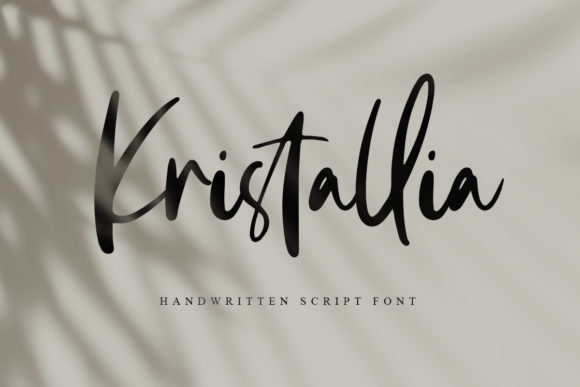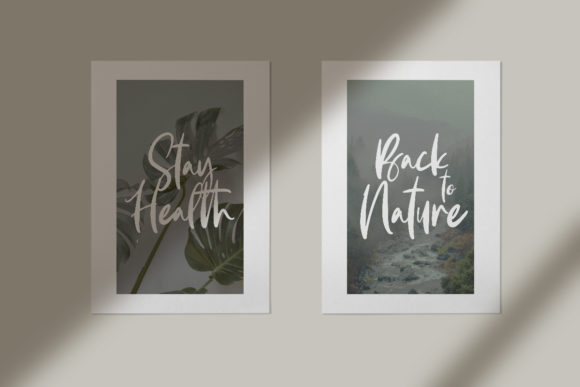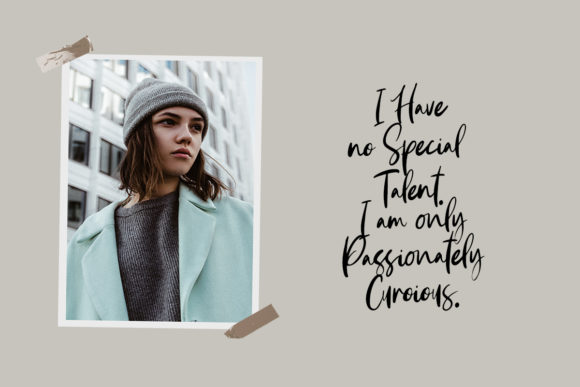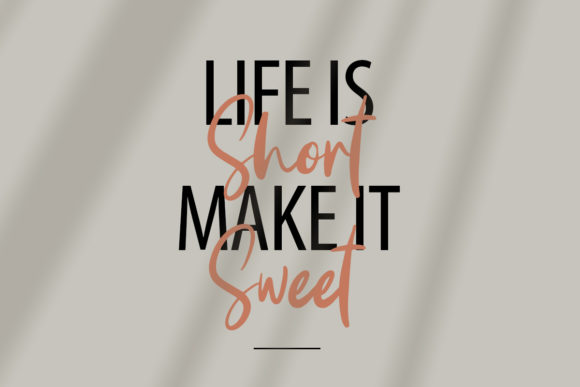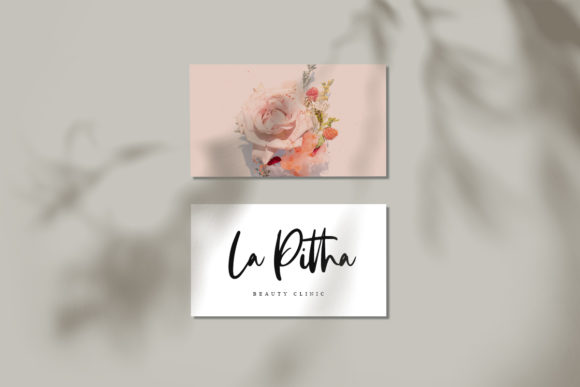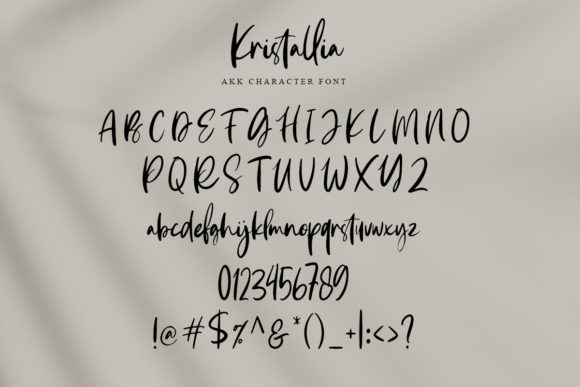
Kristallia Font
About Kristallia Font
Kristallia is a bold handwritten font, carefully handcrafted to become a true favorite. This font is the perfect fit for all of your logos, branding, social media, and crafty DIY projects.